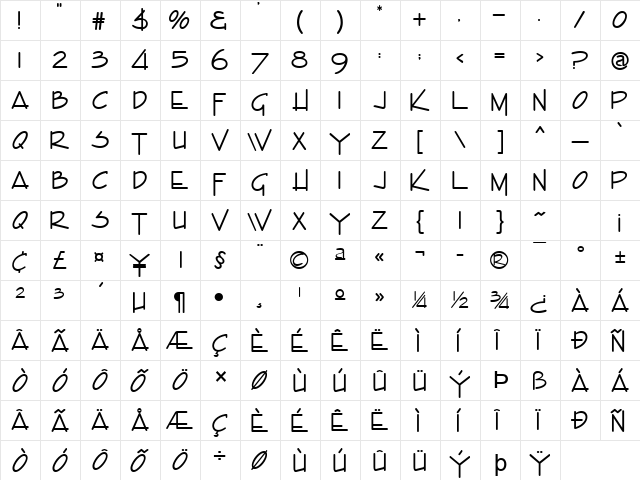
Enview Normal Font Preview
Enview Normal
Enview Normal Font Details
Design Context for Enview Typeface
Enview offers clean, dependable letterforms without strong stylistic allegiance, making it a practical choice for designers who need flexibility.